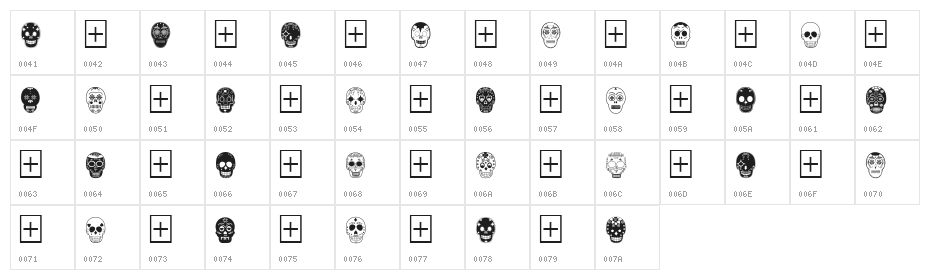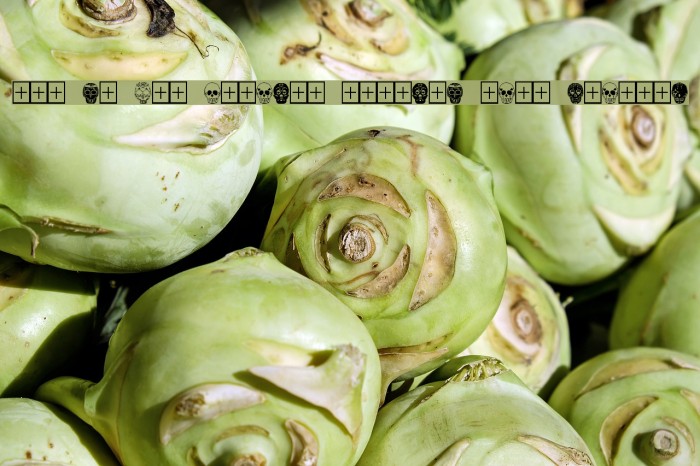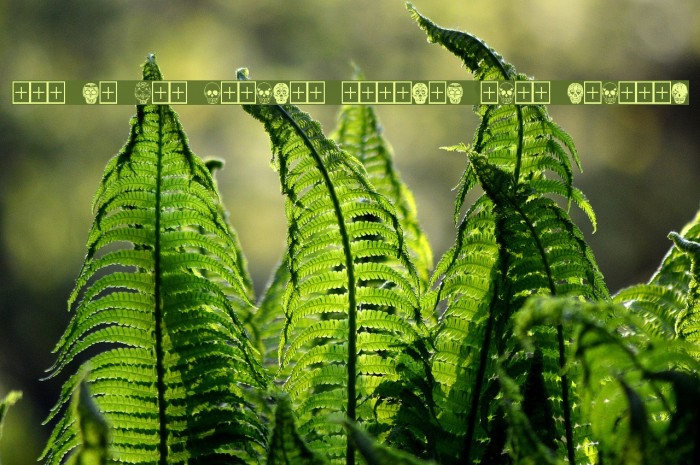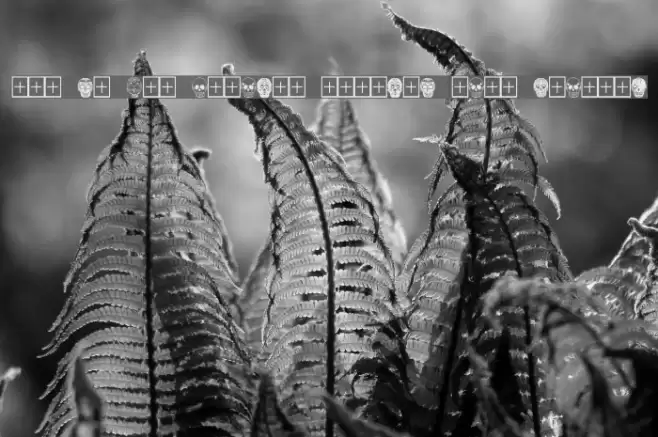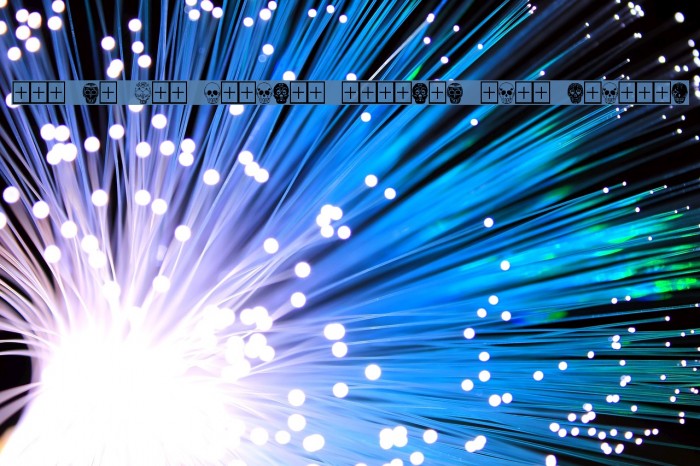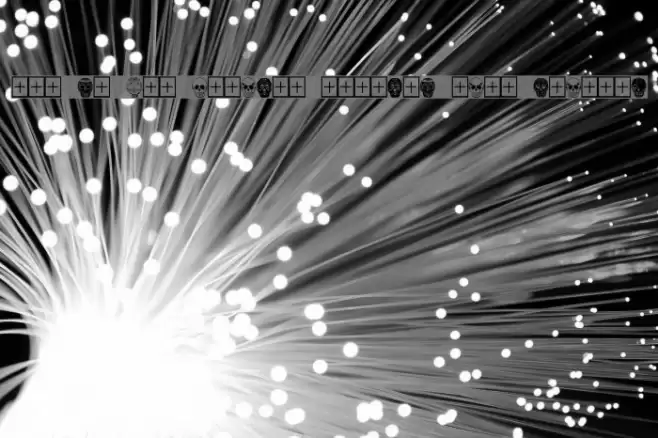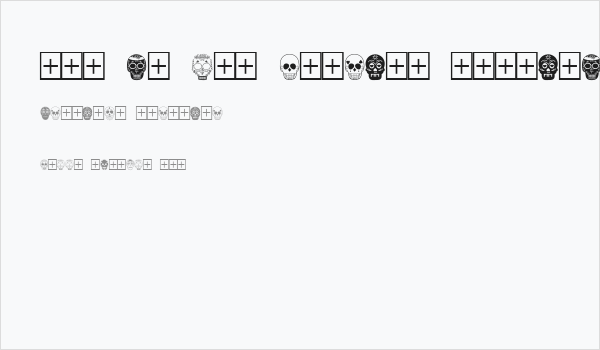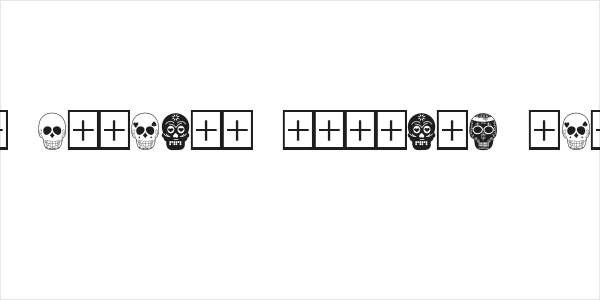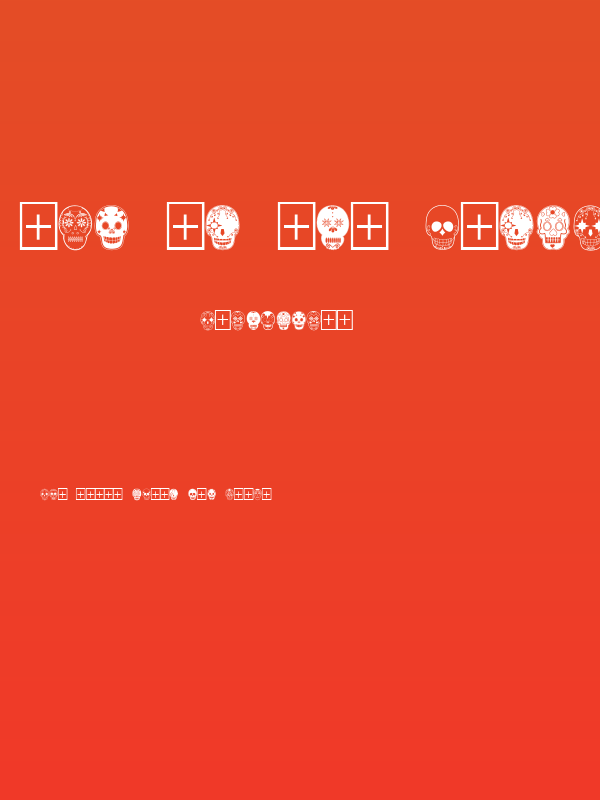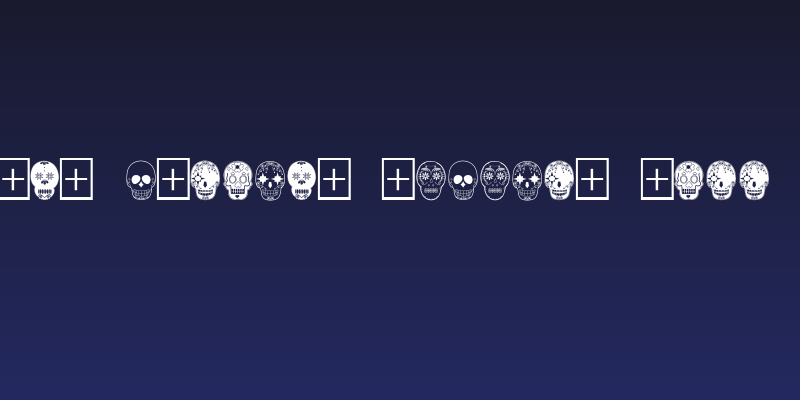
Dia de los Muertos Limited Free Version Font
Dia de los Muertos Limited Free Version Description
A decorative display font featuring intricately designed sugar skulls inspired by Dia de los Muertos, with each character represented by a unique skull illustration. The symbols are bold, highly detailed, and visually striking, with a mix of filled and outlined styles.
| Overall Style | Decorative, Festive, Thematic |
| Use Case | Headlines, Posters, Event Graphics, Themed Logos |
| Proposed Projects | Event posters, themed invitations, festival branding, Halloween or Dia de los Muertos materials, artistic merchandise. |